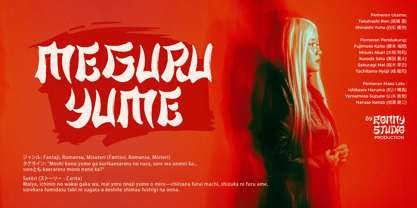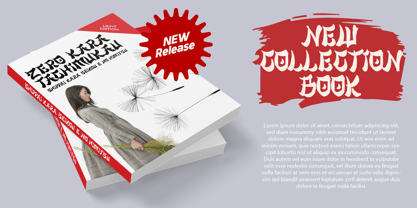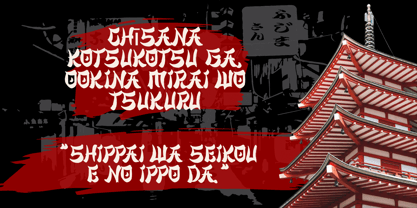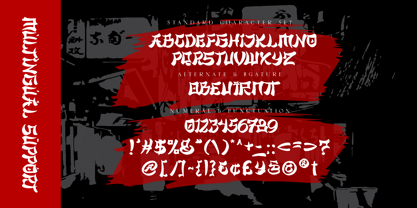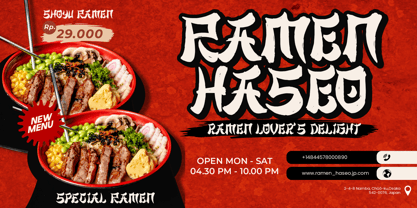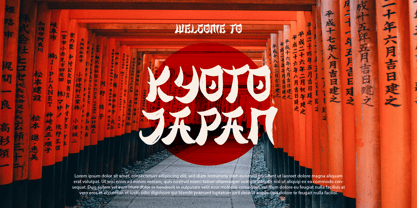
Majisora Tenshei
by Ronny Studio
The Majisora Tenshei Font Family was designed by Rony Rizki Jaya and published by Ronny Studio. Majisora Tenshei contains 1 styles.
Majisora Tenshei is a bold and dynamic Japanese-style font inspired by traditional calligraphy. Perfect for branding, posters, film titles, merchandise, and creative projects that seek an authentic Japanese aesthetic. Developed by Ronny Studio, this font blends classic elegance with a modern touch.
✅ 225 unique glyphs for versatile designs
✅ Bold, all-caps lettering for strong visual impact
✅ Japanese calligraphy-inspired style
✅ Full punctuation & multilingual support
✅ Perfect for branding, headlines, gaming, and apparel